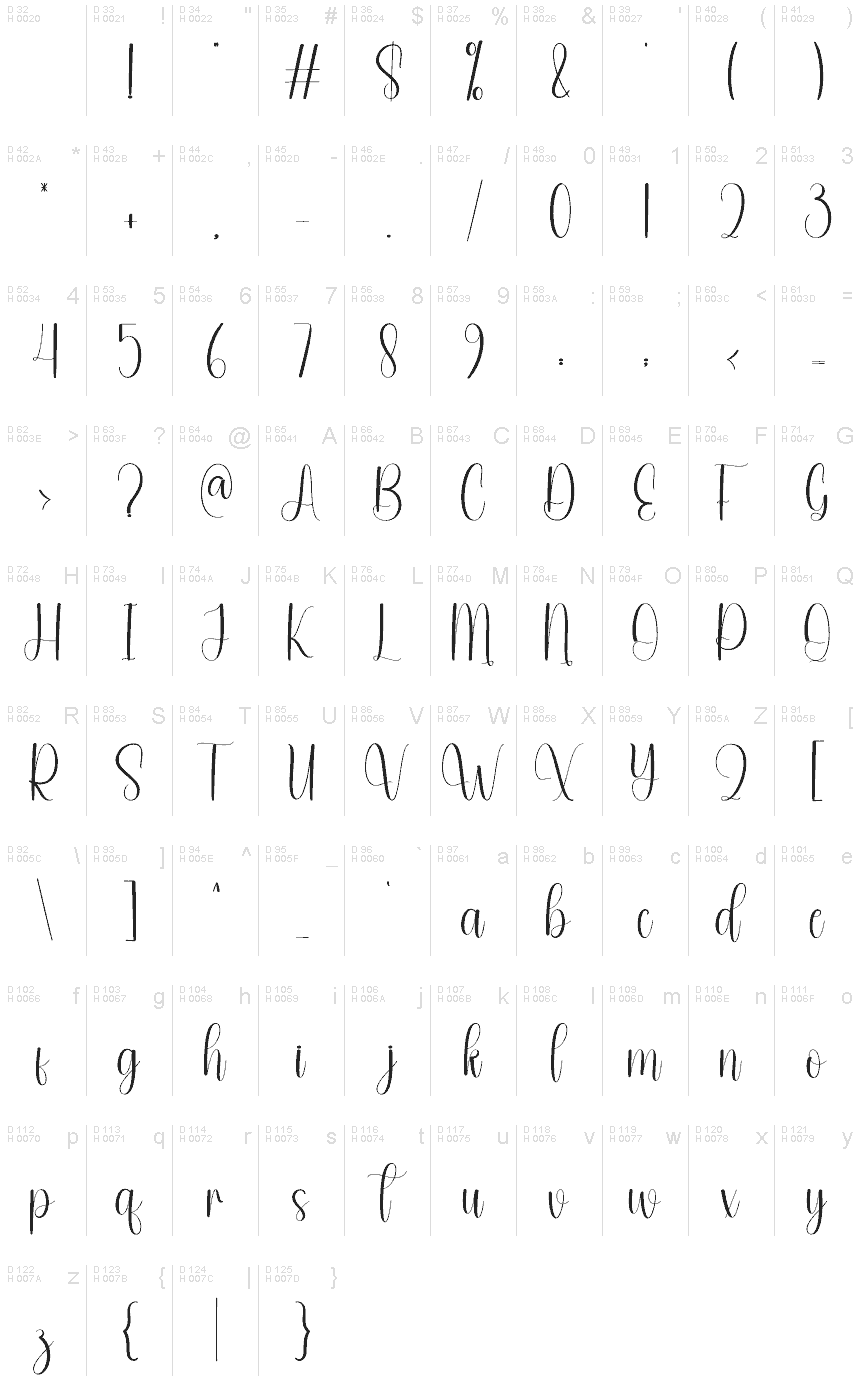
Delicate
Delicate font, designed by Andi Moz, is a graceful light calligraphy font that offers ornamentally flowing characters. With charming curves and elegant lines, this sophisticated typeface presents a truly refined script bringing about an authentic multilingual set. It also mimics the beauty of hand-drawn cursive writing.
This free calligraphy font is a perfect heading style for invitations, greeting cards, magazines covers and body copy sections. Pros could consider it for monogram patterns on clothing items or purpose custom cosmic handings.